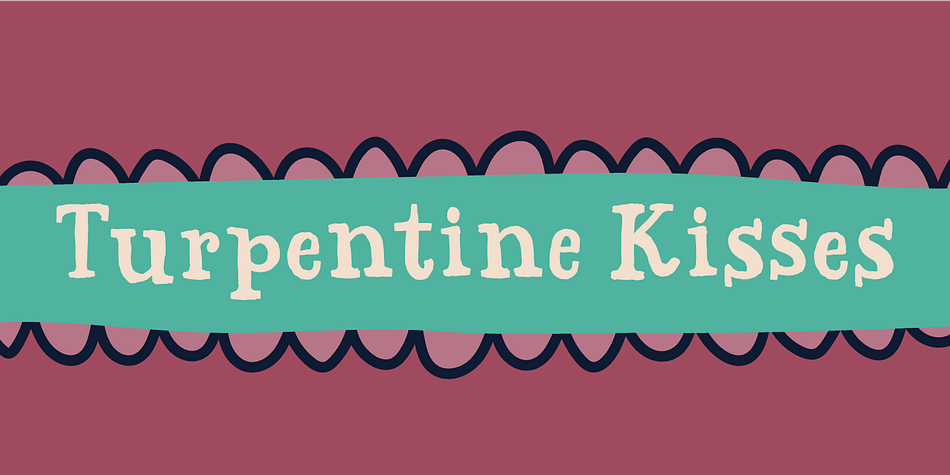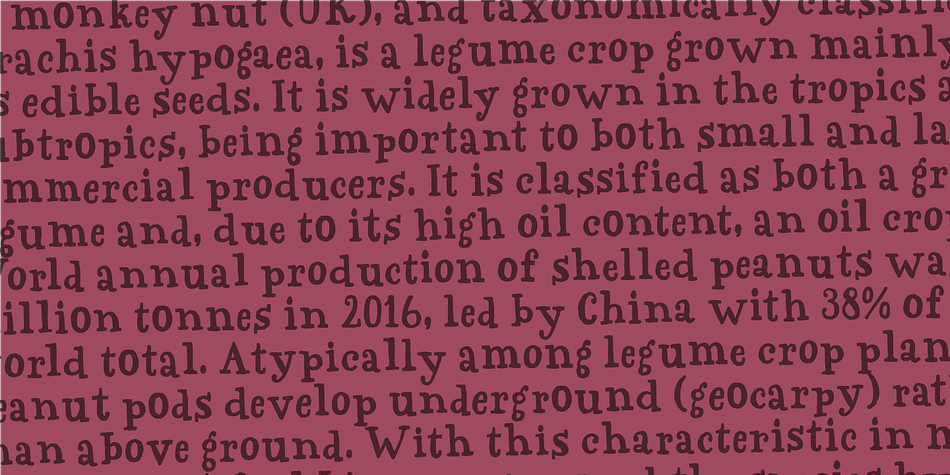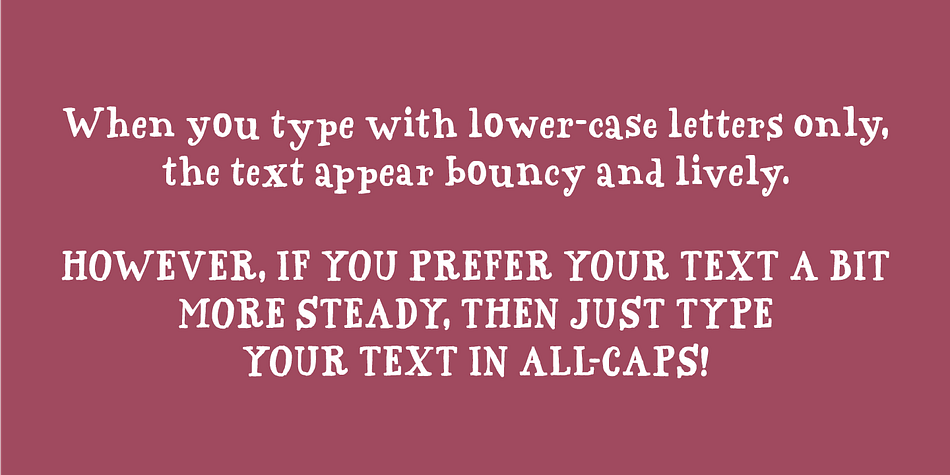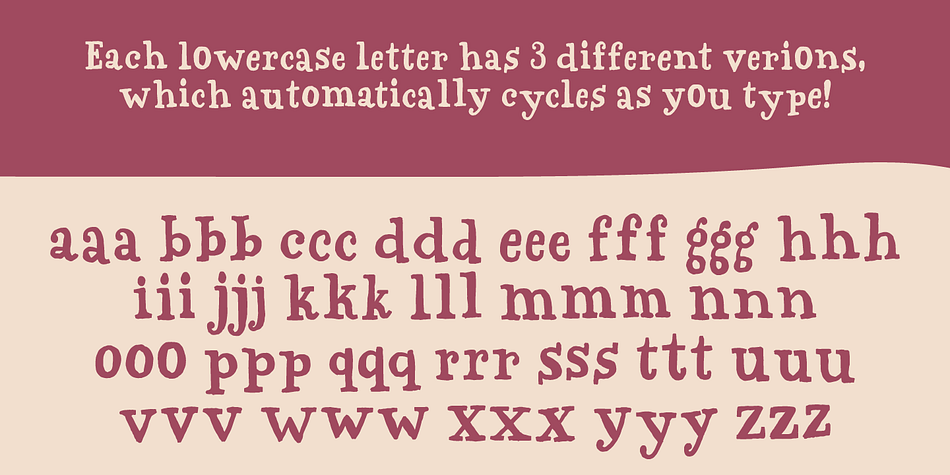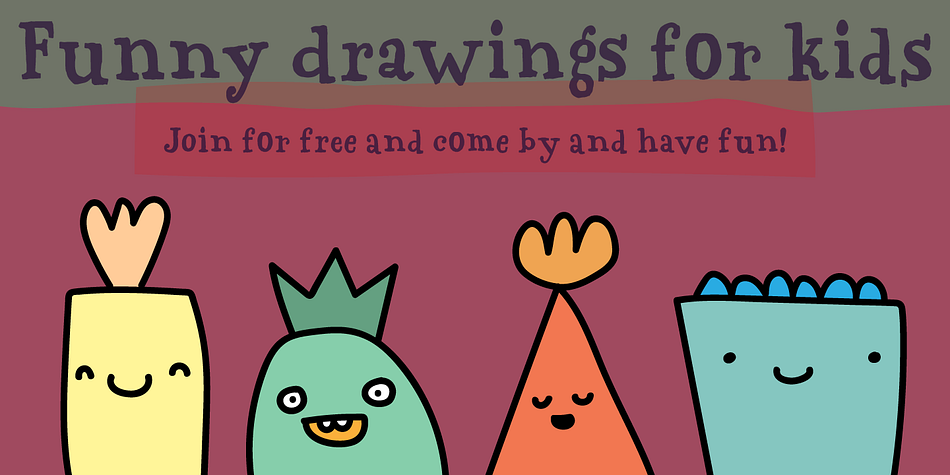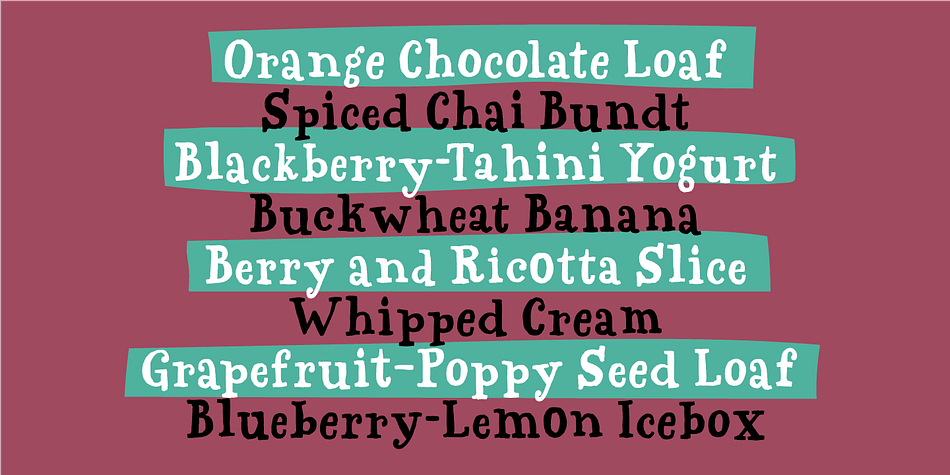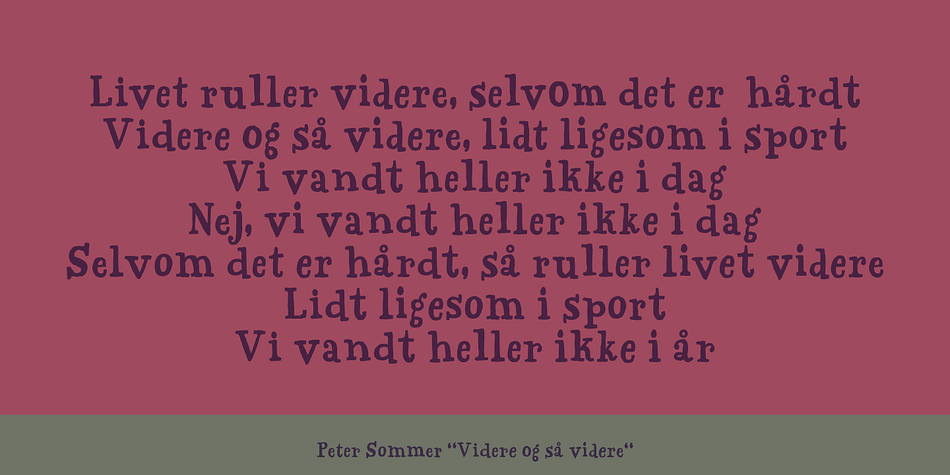
Designed by Jakob Fischer, Turpentine Kisses is a hand display, hand drawn and kids font family. This typeface has two styles and was published by Bogstav.
Based loosely on Clarendon, Turpentine Kisses breaks all the rules of the classic serif fonts. It’s jumpy and bouncy with a clear handmade look. It’s playful yet legible, and full of personality.
I’ve added 3 different versions of each lowercase letter, and they automatically cycle as you type. Or you can just select the one you prefer from the glyph menu.